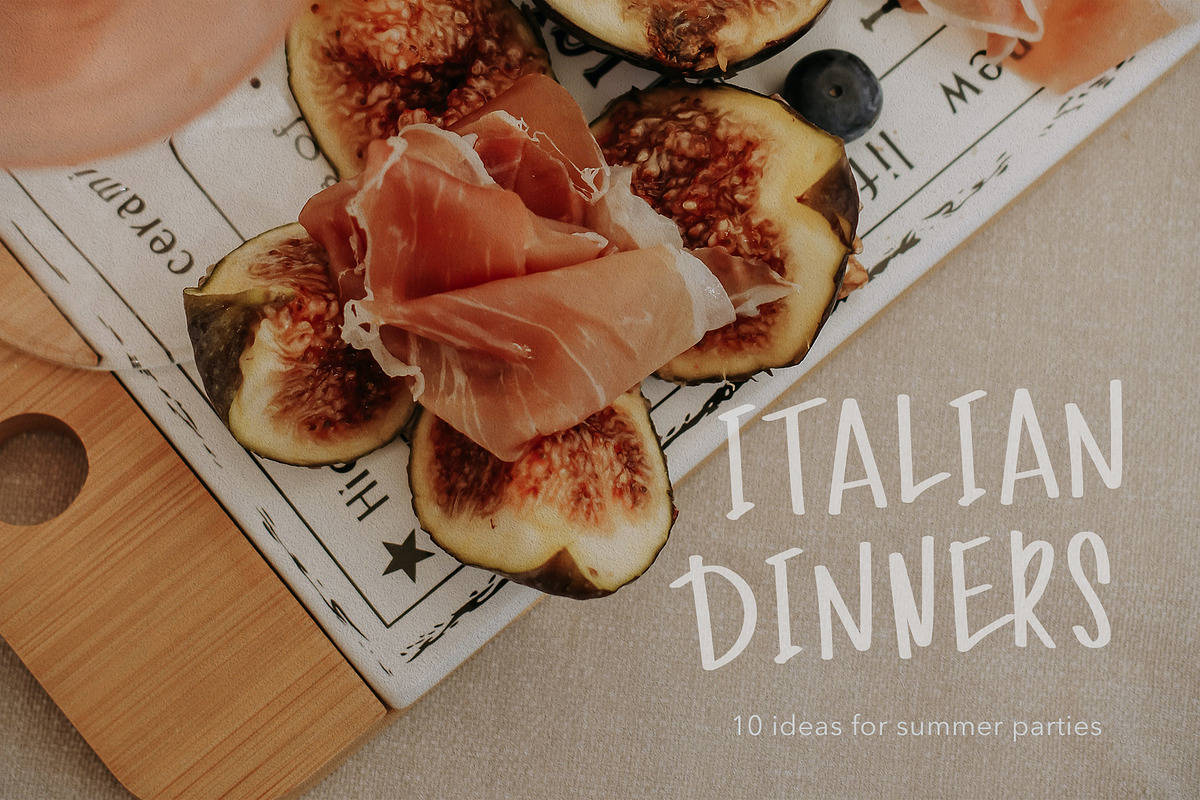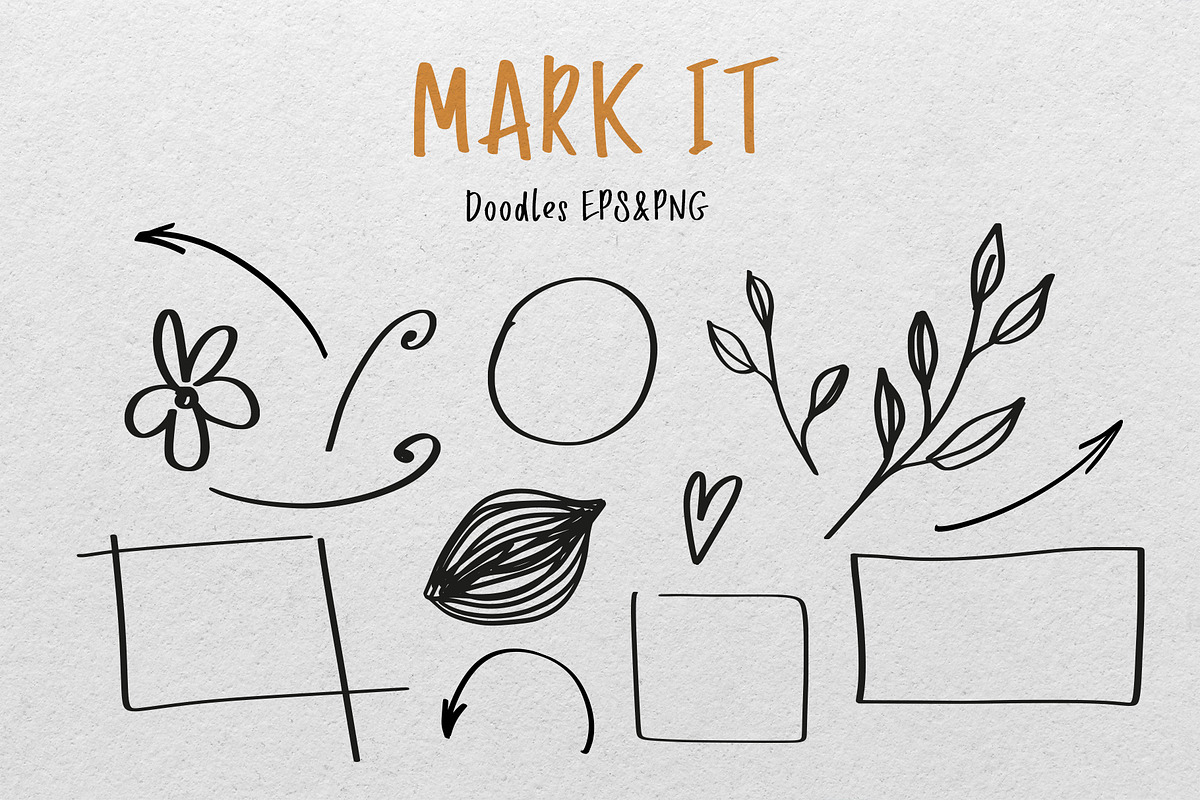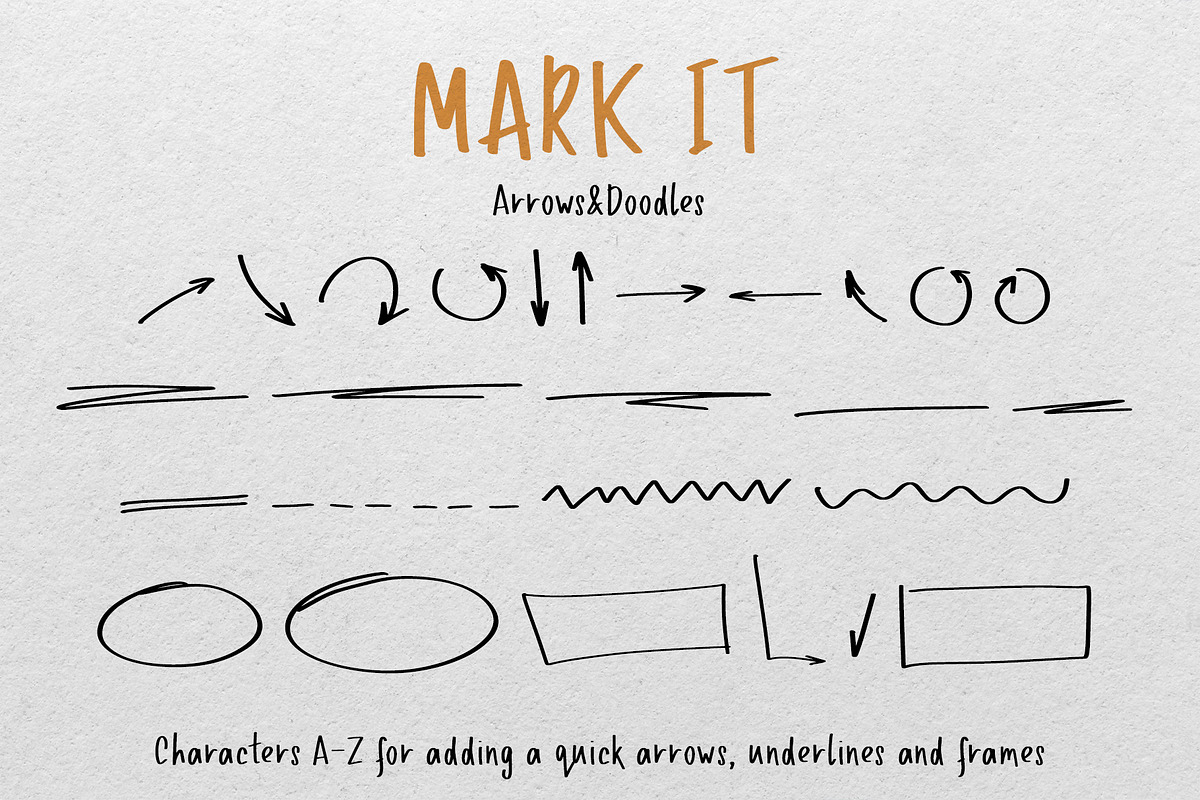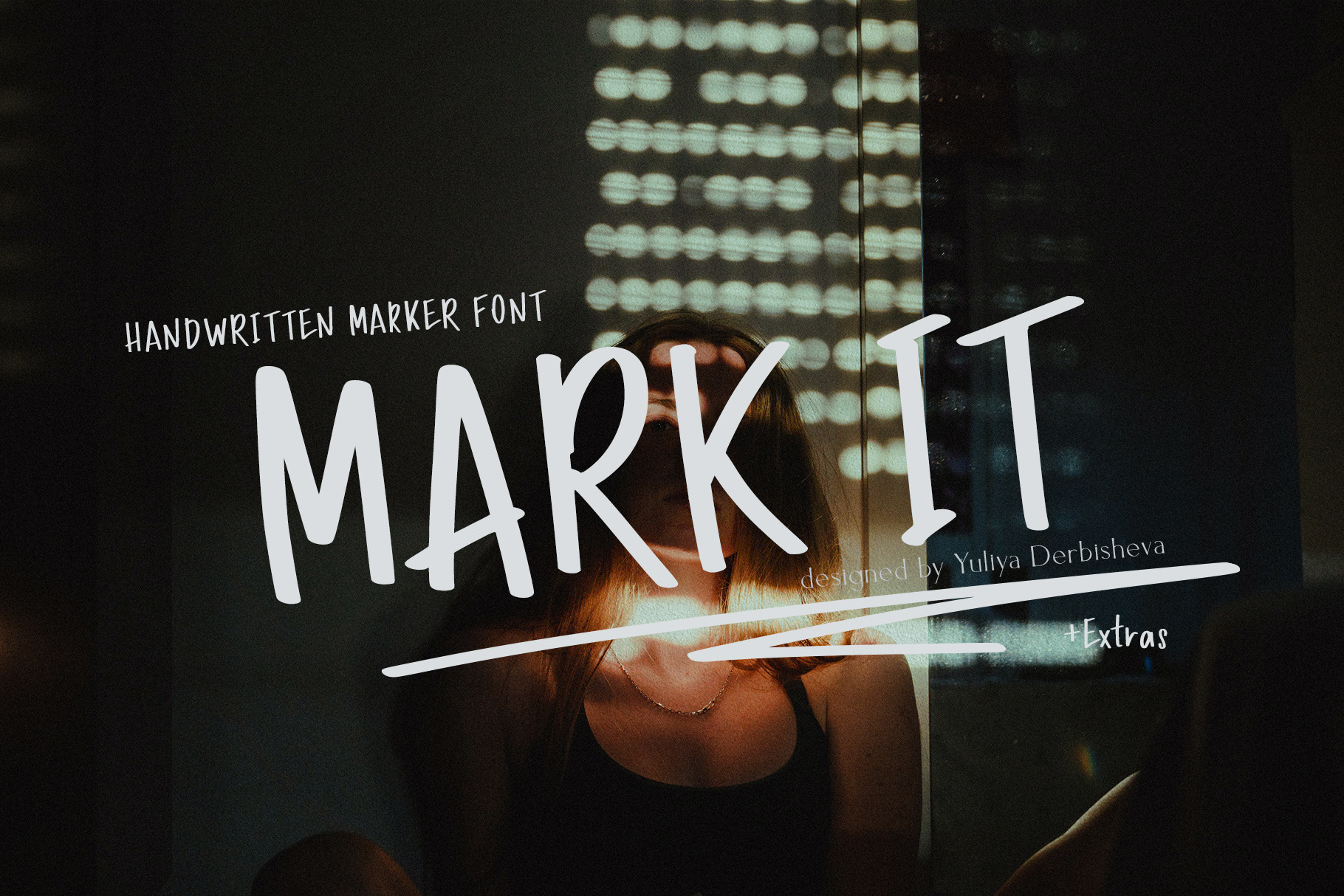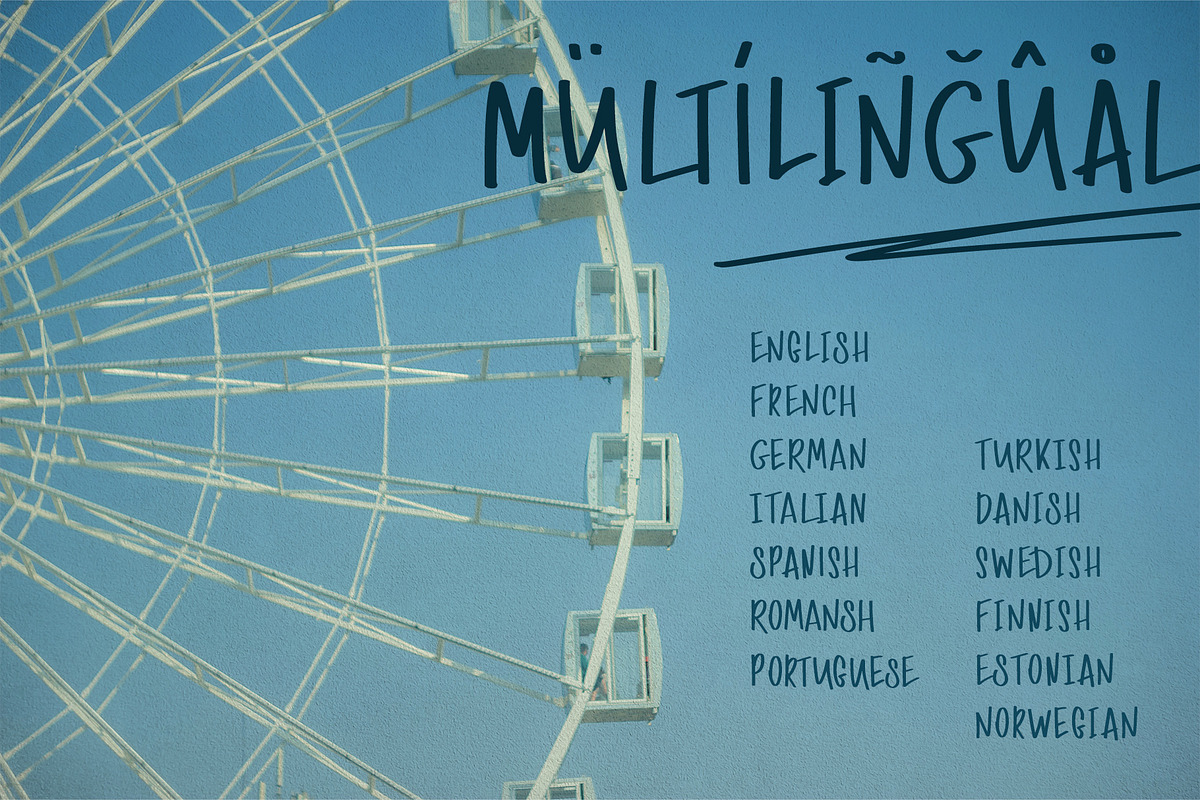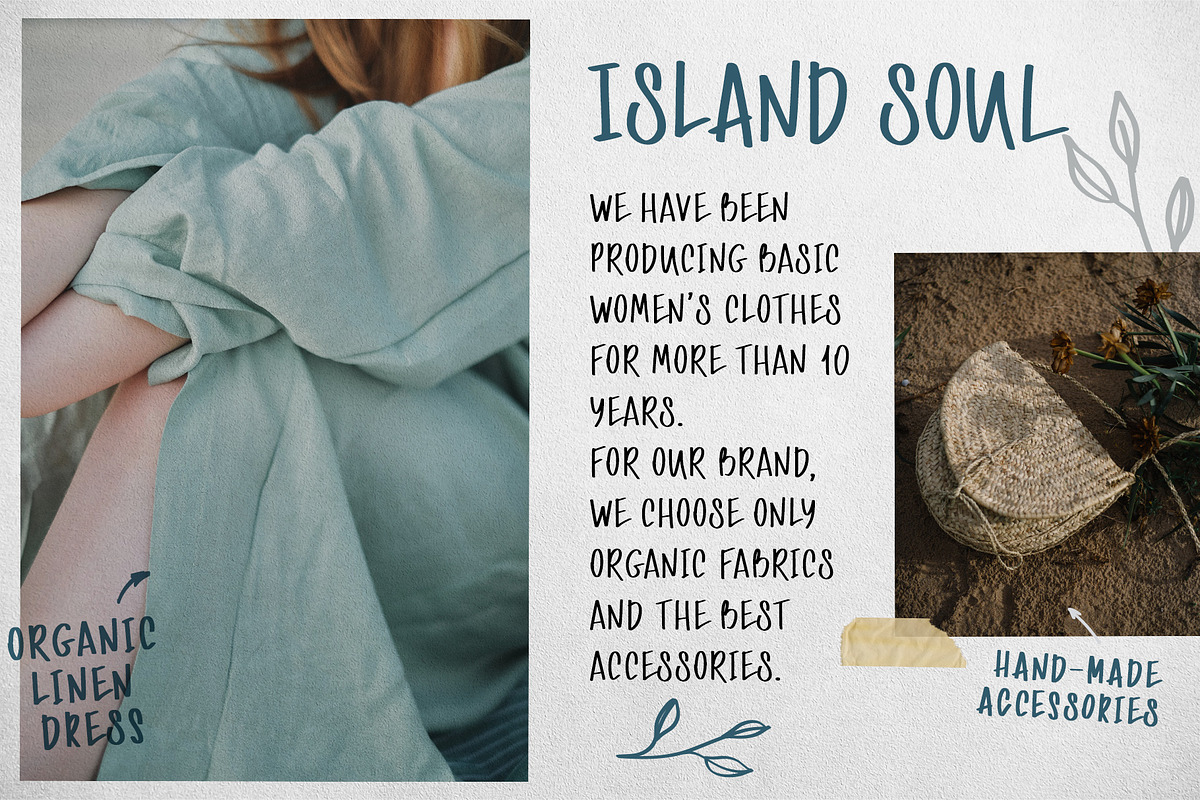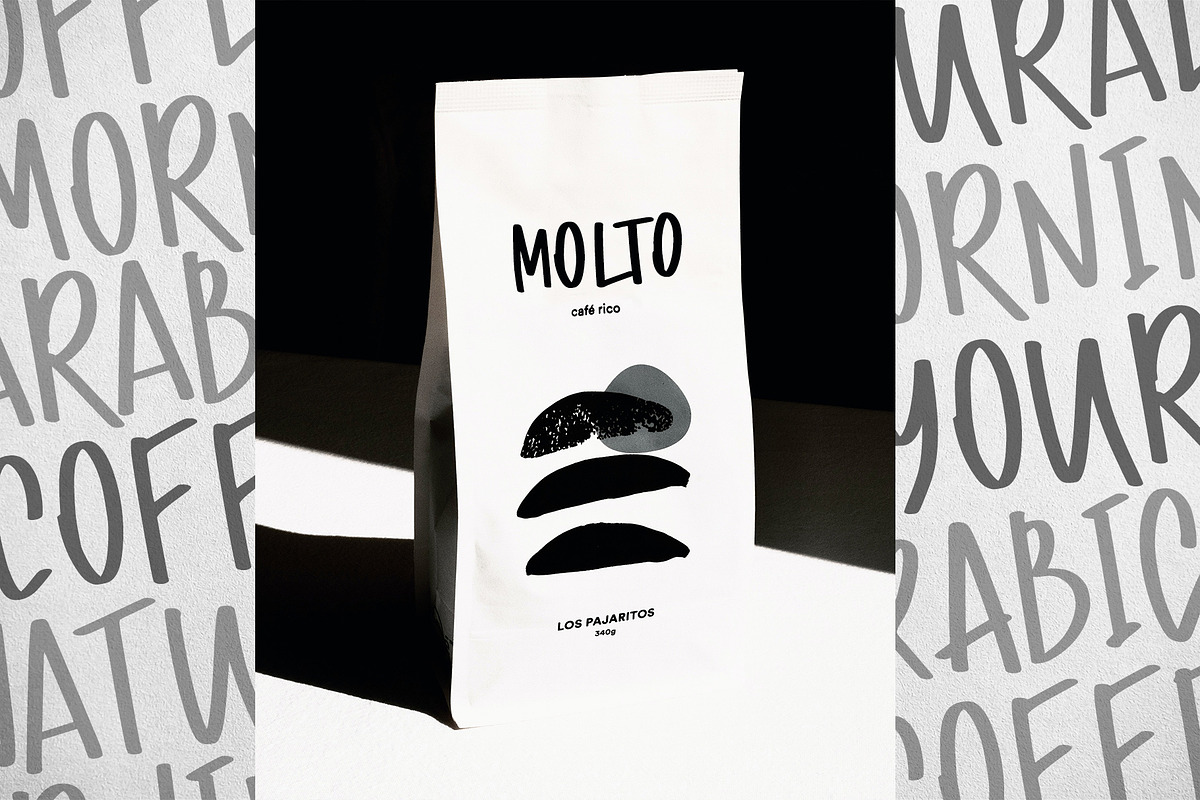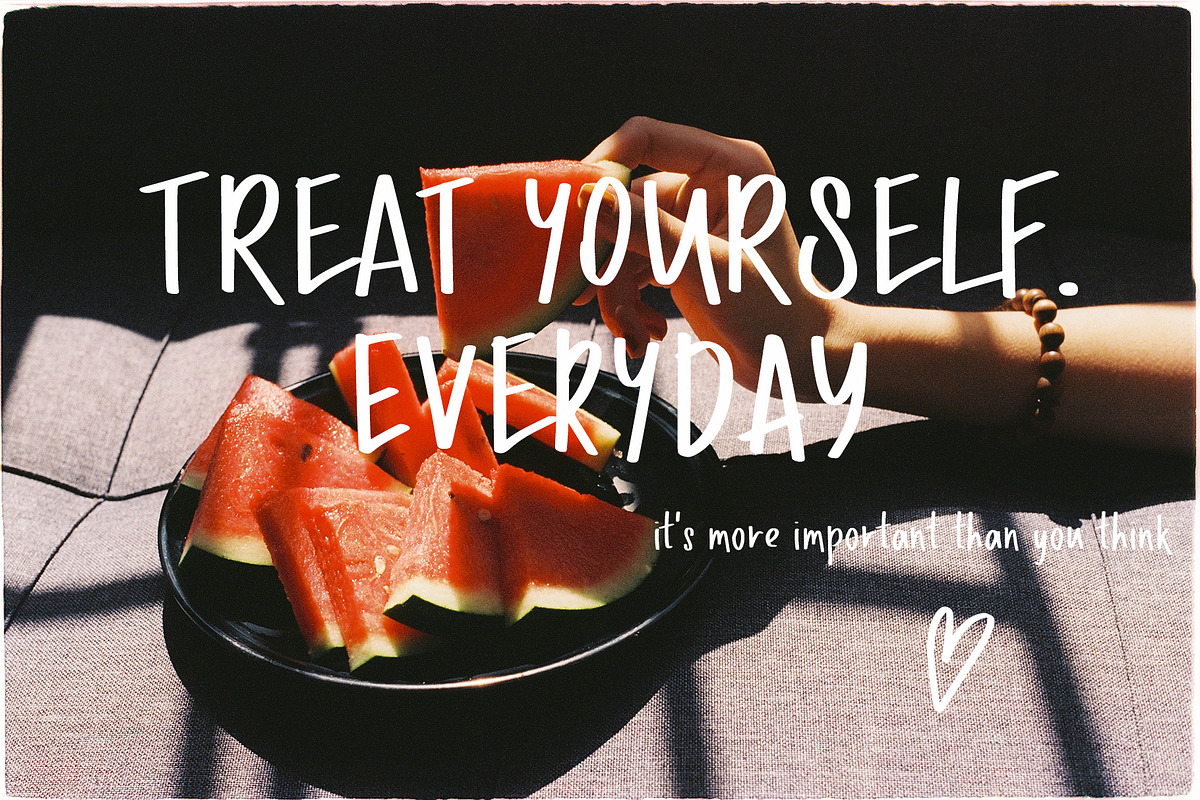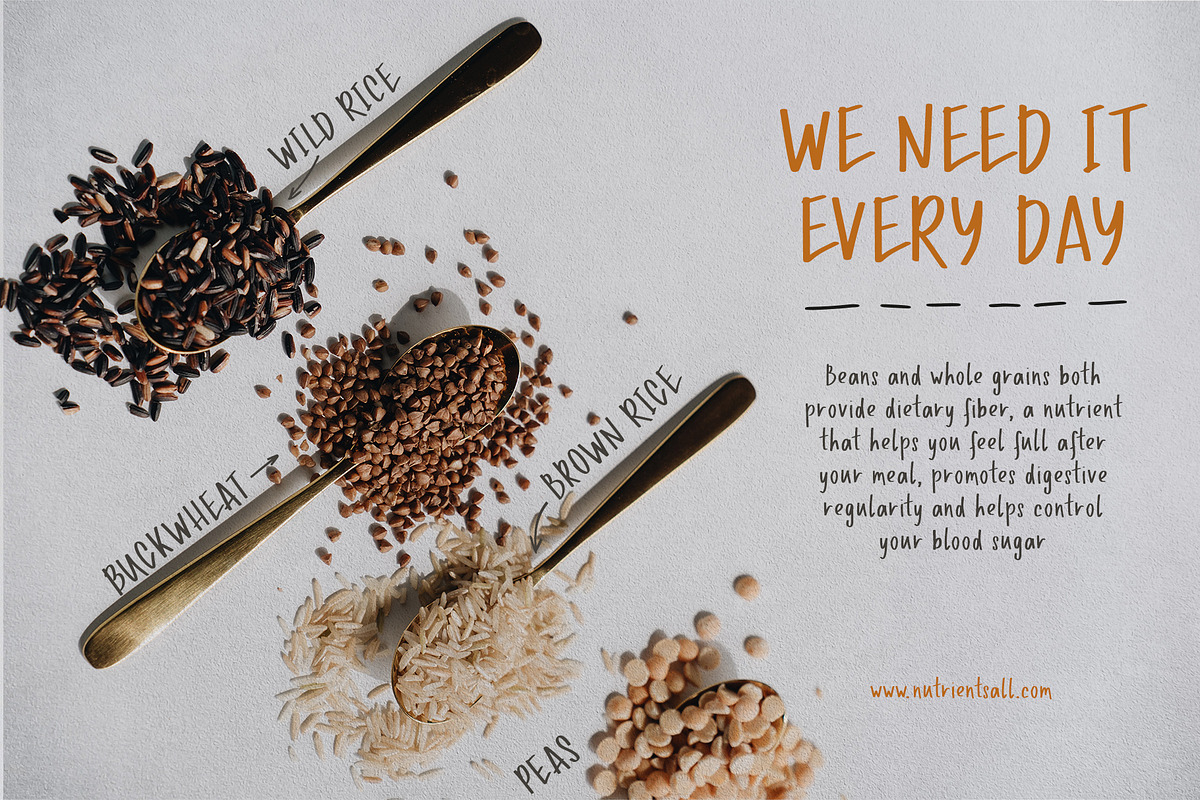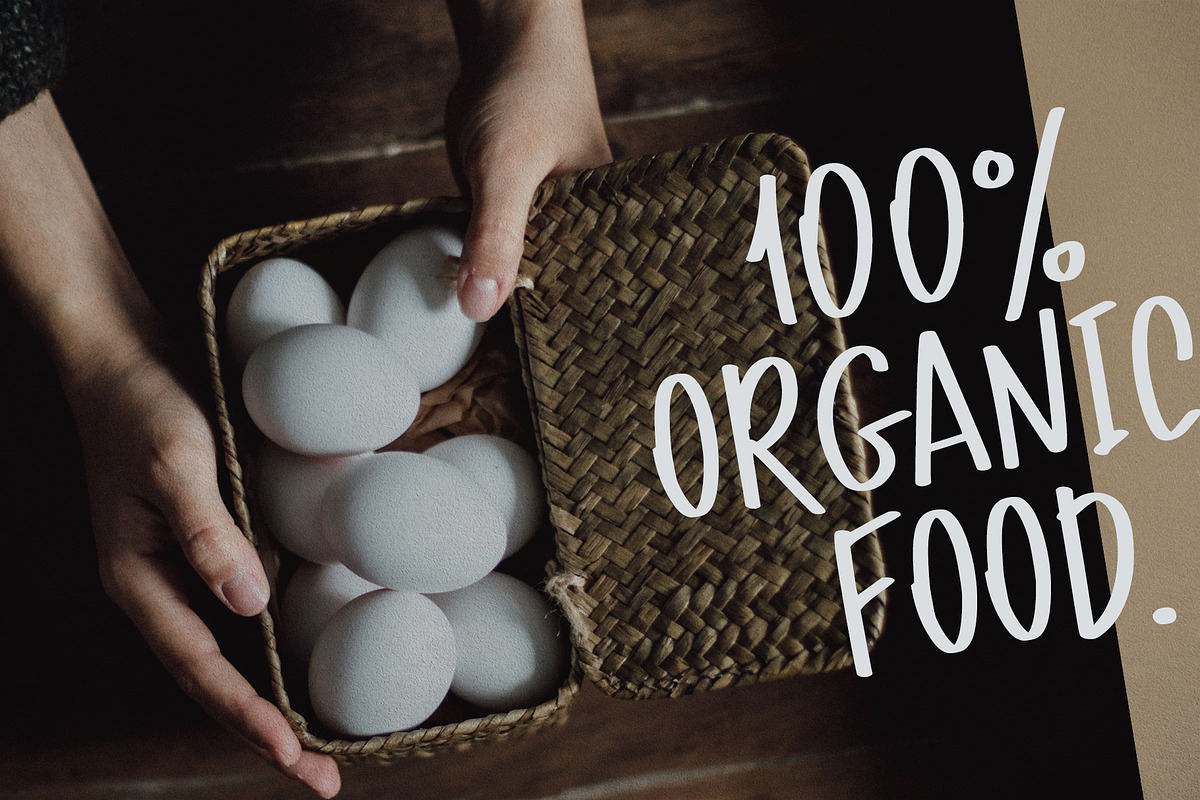
MARK IT marker handwritten font
Mark It is a bold handwritten marker font with the energy of a quick, decisive stroke — direct, warm, and completely unpretentious. It's the kind of lettering that feels written by someone who knows exactly what they want to say and reaches for a marker to say it.
Written with a thick marker, Mark It carries all the characteristics of confident hand lettering on paper: low-contrast strokes with the unmistakable weight of a real marker tip, slightly uneven edges where ink meets the grain, and wide letterforms that feel grounded and human. There's a quiet roughness here — not gritty or aggressive, but honest. The kind of imperfection that makes packaging feel handmade and brands feel like they're run by actual people.
This is a font built for organic brands, artisan products, and anyone designing with natural materials, honest ingredients, and handmade craft in mind. It brings a hand-touched warmth to logos, labels, and packaging without trying too hard — it simply belongs there, like a marker tag on a kraft paper bag.
Stylistic alternates for natural handwritten variation
Arrows & doodles built into the font
Organic and natural food brands, farm-to-table packaging & labels
Artisan, handmade & eco-friendly product branding
Women's clothing, lifestyle brands & slow fashion identity
Logo design & handcrafted visual identity
Social media graphics, quotes & lifestyle content
Posters, prints & apparel design
Any project that needs warmth, honesty, and a hand-rendered touch
Bold handwritten marker font with natural ink variation and edge texture
Low stroke contrast — consistent marker weight throughout, no calligraphic pressure
Wide, grounded letterforms with a slight rightward lean and hand-touched imperfection
Stylistic alternates for varied, natural-looking letter combinations
Arrows and doodles in-font for layout composition and directional energy
14 hand-drawn illustrations for branding, packaging and seasonal design
Multilingual support: English, French, German, Italian, Spanish, Portuguese, Danish, Norwegian, Swedish, Finnish, Estonian, Romansh, Turkish
The aesthetic: Mark It feels like a label written by hand on a jar of homemade jam, a logotype sketched in marker on the back of a napkin, a brand that actually works with its hands. It is the right font when a design needs to feel genuinely artisanal — not rustic-by-theme, not decorative, but rooted in the real warmth of things made carefully and sold honestly. Graphic enough for headlines, personal enough for a product tag, warm enough to carry a whole brand identity.